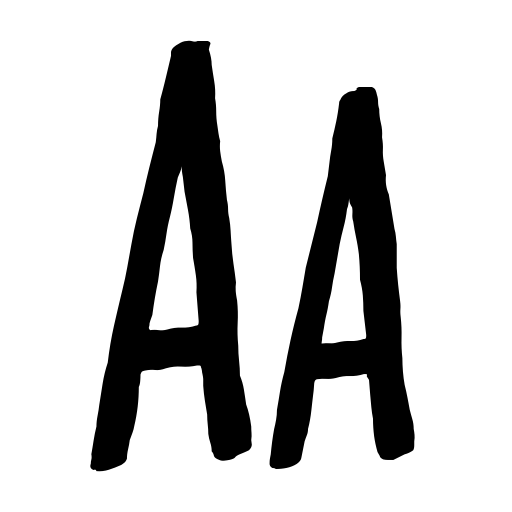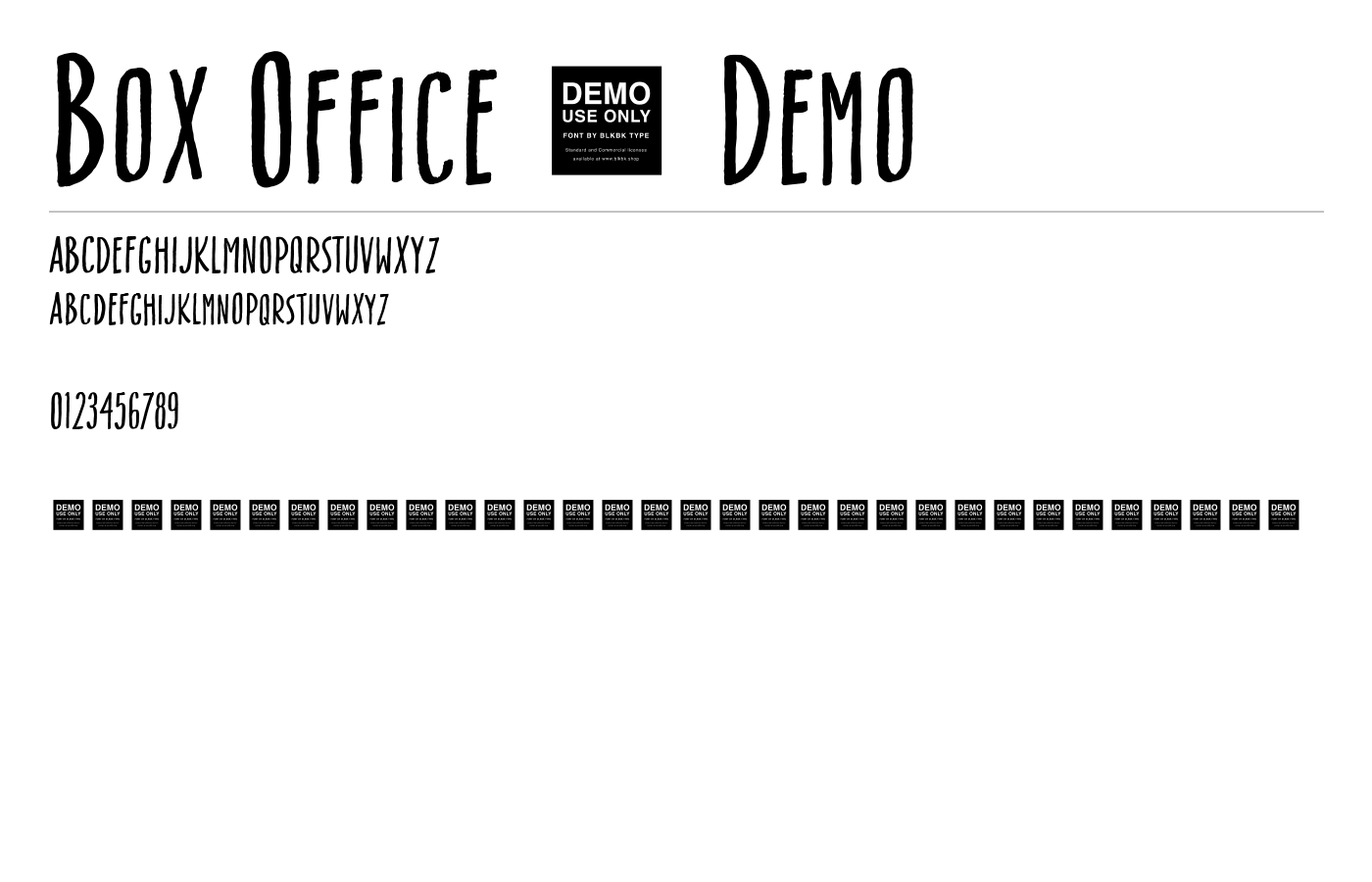
Box Office is a tall, narrow sans serif font with a hand-drawn, slightly rough texture that gives it a casual, playful personality. Its condensed letterforms and uneven stroke width make it stand out for creative projects needing a unique, approachable vibe. Ideal for headlines, posters, and branding that seeks a quirky, artistic touch.
Box Office - Demo Font
About Box Office - Demo Font